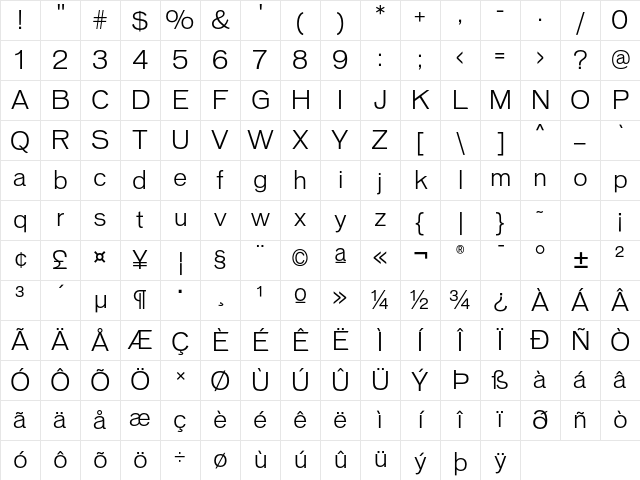
Complete MP FBVonness Light glyph index. Displaying only characters natively supported by MP FBVonness Light font.
MP FBVonness is a composed and adaptable typeface that performs quietly and consistently across a wide range of design contexts. Its slender proportions lend an understated elegance to any composition.